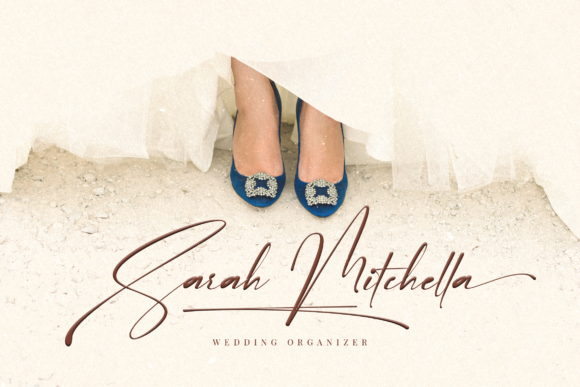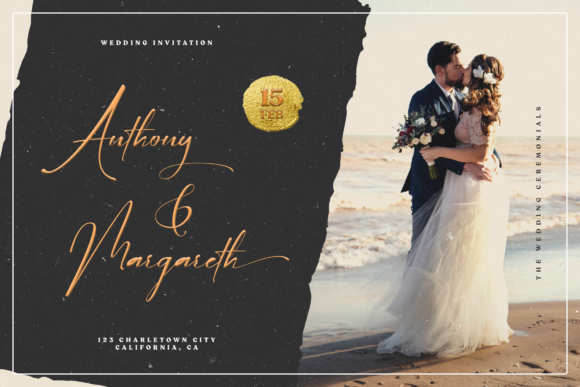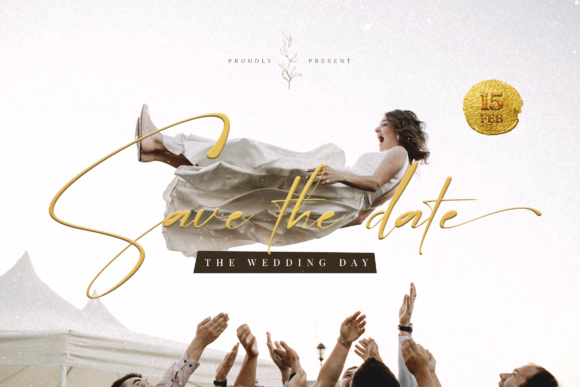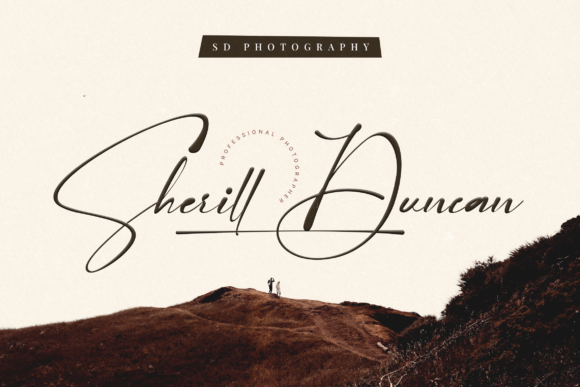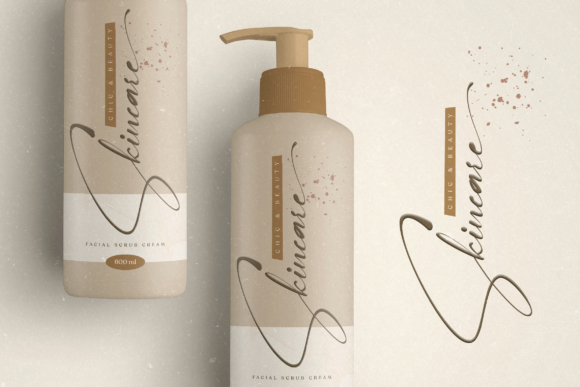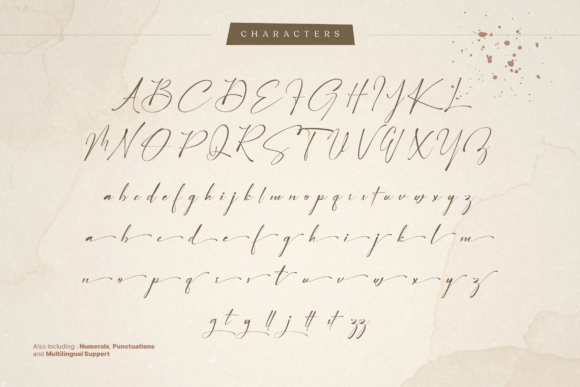
Introducing Arinttika Signature Font: Elevate Your Designs with Elegance and Charm
Are you a designer or crafter looking for a font that exudes elegance and charm? Look no further than the Arinttika Signature Font. This beautiful, handwritten font is perfect for adding a touch of sophistication to a variety of design projects. In this article, we’ll explore the features and benefits of Arinttika Signature Font and show you how it can elevate your designs.
A Font that Feels Equally Charming and Elegant
Arinttika Signature Font is a stunning, handwritten font that feels equally charming and elegant. Its unique, cursive style is perfect for creating beautiful, eye-catching designs that will leave a lasting impression. Whether you’re designing wedding invitations, thank you cards, quotes, greeting cards, logos, or business cards, this font is sure to add a touch of elegance and sophistication.
Arinttika Signature Font is a versatile font that can be used for a wide range of design projects. Here are just a few examples of how you can use this beautiful font:
- Wedding Invitations: Create stunning wedding invitations that set the tone for a beautiful and elegant wedding.
- Thank You Cards: Add a personal touch to your thank you cards with this beautiful, handwritten font.
- Quotes: Create inspiring and eye-catching quotes that will leave a lasting impression.
- Greeting Cards: Design beautiful greeting cards for special occasions such as birthdays, anniversaries, and holidays.
- Logos: Use Arinttika Signature Font to create a unique and elegant logo for your business or brand.
- Business Cards: Add a touch of sophistication to your business cards with this beautiful font.
One of the best features of Arinttika Signature Font is that it is PUA (Private Use Area) encoded. This means that you can access all of the glyphs and swashes with ease, giving you even more creative freedom and flexibility. With PUA encoding, you can:
- Access alternate characters: Switch between different character variations to create a unique look.
- Use swashes: Add beautiful swashes to your design to give it a more elegant and sophisticated look.
- Customize your design: With access to a wide range of glyphs and swashes, you can customize your design to fit your needs.
Why Choose Arinttika Signature Font?
So why choose Arinttika Signature Font for your design projects? Here are just a few reasons:
- Elegant and charming: This font exudes elegance and charm, making it perfect for designs that require a sophisticated look.
- Versatile: Arinttika Signature Font can be used for a wide range of design projects, from wedding invitations to logos.
- Easy to use: With PUA encoding, you can access all of the glyphs and swashes with ease, making it easy to customize your design.
- High-quality: This font is high-quality and designed to look beautiful in any design project.
If you’re looking for a font that exudes elegance and charm, look no further than Arinttika Signature Font. This beautiful, handwritten font is perfect for adding a touch of sophistication to a variety of design projects. With its PUA encoding and versatile design, it’s easy to see why Arinttika Signature Font is a great choice for designers and crafters. So why wait? Download Arinttika Signature Font today and start creating stunning designs that will leave a lasting impression.